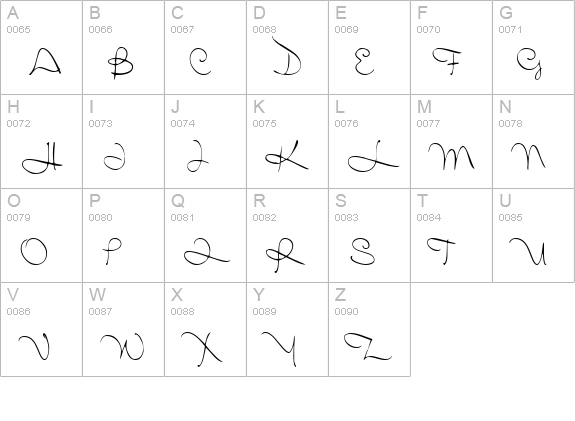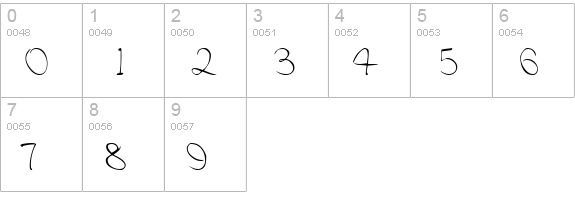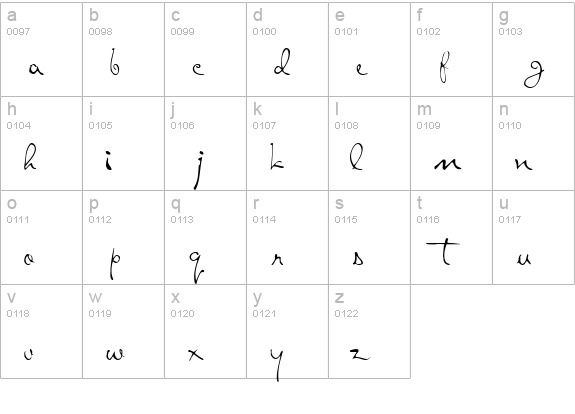
AlicoScriptSSK Font Details
AlicoScriptSSK is a beautifully crafted font that exudes elegance and sophistication. Its flowing script style adds a touch of refinement to any design project. This versatile font is perfect for invitations, greeting cards, branding materials, and more. What makes AlicoScriptSSK even more appealing is that it is available for free download at FontsMarket.com. Now you can add a touch of luxury to your projects without breaking the bank. Don't miss out on this stunning font that will elevate your designs to the next level.